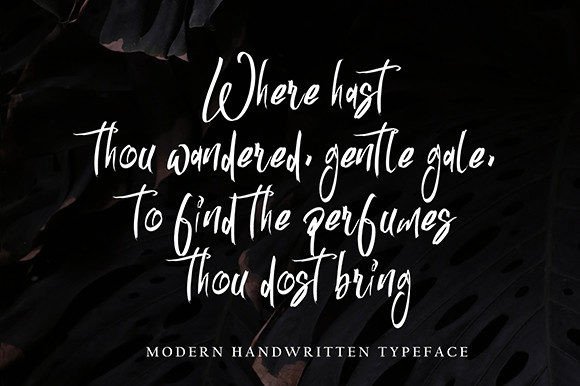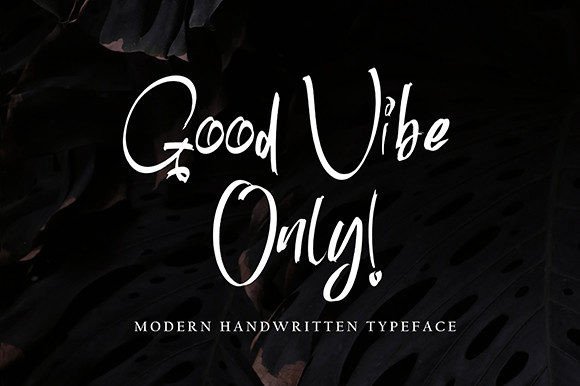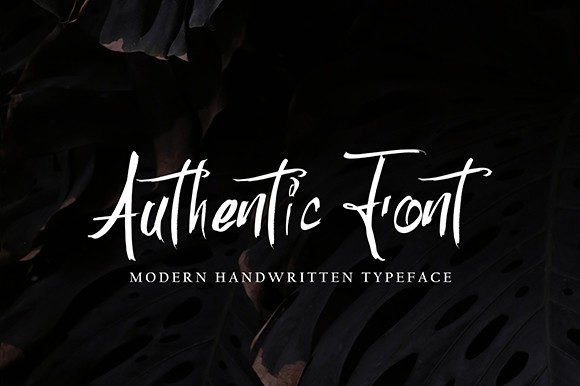
Introduction to Shouthampon Font
As designers, we’ve all been there – staring at a blank canvas, trying to bring a creative project to life. The perfect font can make all the difference, and that’s where the Shouthampon Font comes in. This modern handwritten typeface is a game-changer for designers looking to add a touch of elegance and sophistication to their work.
With its high-quality design and versatility, the Shouthampon Font is a valuable resource for any creative project. Whether you’re working on a blog post, a poster, or a logo, this font is sure to impress. And the best part? It’s available for free download, making it an accessible design resource for designers of all levels.
Key Features of Shouthampon Font
- High-quality typography with unique, creative flair suitable for various design projects.
- Unique, handcrafted design elements that set it apart from standard fonts, making it perfect for creative projects.
Honest Review: Shouthampon Font
As a designer, I’m always on the lookout for high-quality fonts that can elevate my creative projects. The Shouthampon Font is a recent discovery that caught my attention, and I’m excited to share my thoughts on it.
What works well: ✨ The Shouthampon Font offers a sleek and modern design that’s perfect for a wide range of creative projects, from graphic design to web development. The font is available for free download, making it a great resource for designers on a budget. I also appreciate the transparent background, which makes it easy to use in various design scenarios.
Limitations: ⚠️ While the Shouthampon Font is a great addition to any designer’s toolkit, it’s not without its limitations. The font lacks a comprehensive character set, which may be a issue for designers working on projects that require a wide range of languages or characters.
Overall, I’m impressed with the Shouthampon Font, and I’d definitely recommend it to designers looking for a high-quality, free font to add to their collection.
Getting the Most Out of Shouthampon Font
For the best results, use the Shouthampon Font in conjunction with other design elements, such as graphics and images. Experiment with different font sizes, colors, and styles to create a unique and eye-catching design.
The Shouthampon Font is perfect for a variety of creative projects, including blog posts, social media graphics, and business presentations. Its high-quality design and transparent background feature make it an ideal design resource for anyone looking to take their projects to the next level.